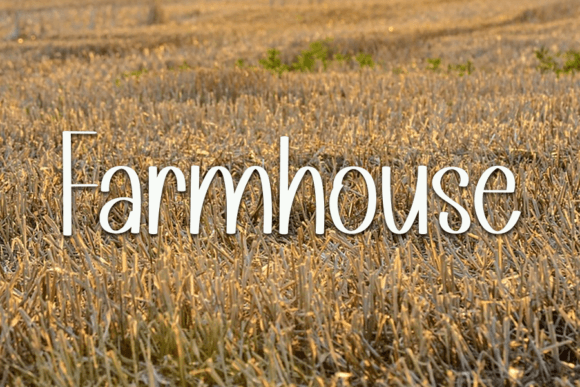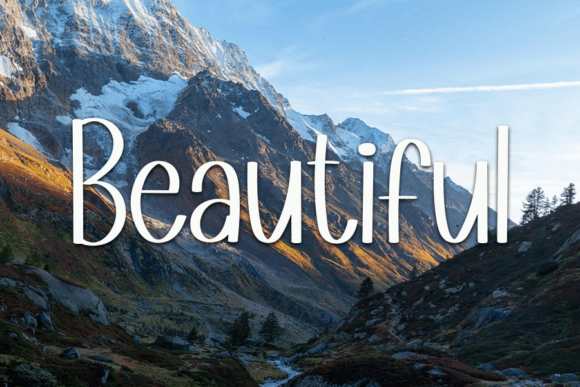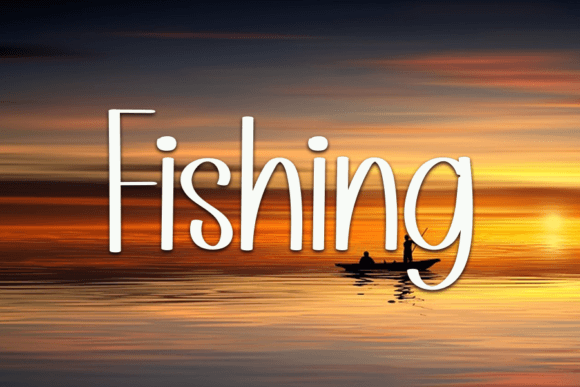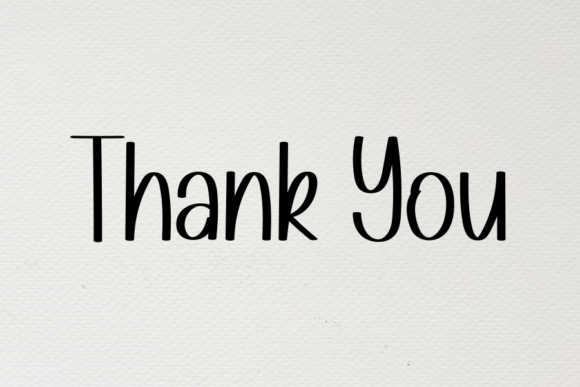
Introduction to Simple Beach Font
As I sat on the beach, watching the sunset paint the sky with hues of orange and pink, I couldn’t help but feel inspired. The sound of the waves, the smell of the saltwater, and the warmth of the setting sun all combined to spark a creative moment. I pulled out my sketchbook and began to brainstorm ideas for a new project, and that’s when I stumbled upon the perfect font to match the mood – the Simple Beach Font.
With its delicate, handwritten characters that dance along the baseline, the Simple Beach Font is the perfect addition to any design project. Whether you’re working on a free download or a high-quality print, this font is sure to add a touch of warmth and coziness to your design. As a valuable resource for designers, the Simple Beach Font offers a unique and creative way to express your ideas, making it a must-have for any design project.
Key Features of Simple Beach Font
- Transparent background for seamless integration with your design
- High-quality design resource perfect for creative projects and presentations
- Includes 5 unique font styles with varying font sizes and resolutions
- Designed with a clean and minimalist aesthetic, ideal for modern design projects
- Perfect for creating a beach or summer-themed design, with a relaxed and casual feel
Honest Review: Simple Beach Font
I recently stumbled upon the Simple Beach Font, and I’m excited to share my thoughts on this design resource. As a designer, I’m always on the lookout for high-quality fonts that can elevate my creative projects.
- ✨ The font’s clean and minimalist design makes it perfect for a variety of projects, from beach-themed websites to travel brochures.
- ✨ The transparent background option allows for seamless integration with any design element.
- ⚠️ The font may not be suitable for complex, high-contrast designs, as the simplicity can get lost in busy compositions.
- ⚠️ Some users may find the font too generic, lacking the unique character that more elaborate fonts provide.
Overall, I think the Simple Beach Font is a solid addition to any designer’s toolkit. While it may have its limitations, its versatility and high quality make it a great choice for a wide range of creative projects.
How to Use Simple Beach Font
To get the most out of the Simple Beach Font, try using it in combination with other design elements, such as images or shapes. You can also experiment with different font sizes and colors to create a unique and eye-catching design. Additionally, consider using the font in a creative project, such as a brochure or flyer, to add a professional touch.
The Simple Beach Font is commonly used in design projects that require a high-quality, elegant font. Some common use cases include:
- Beach-themed marketing materials
- Travel brochures